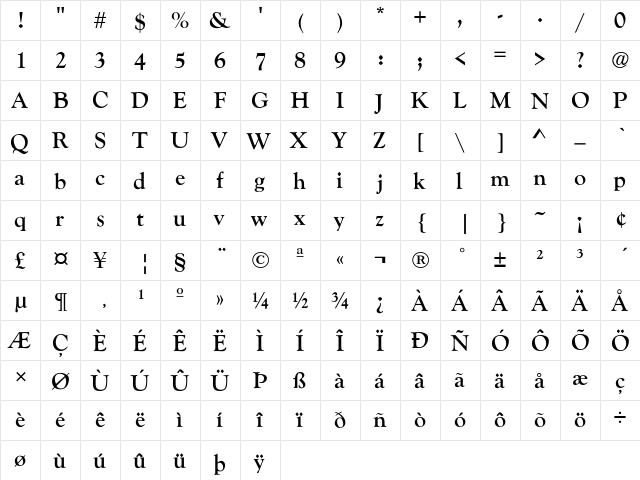
Goudy-Old-Style-Bold Regular
Design Context for Goudy-Old-Style-Bold Typeface
Goudy-Old-Style-Bold takes a measured approach to typography — its balanced proportions and neutral character make it a reliable workhorse for both digital and print work. The heavy weight commands attention and anchors typographic hierarchies.